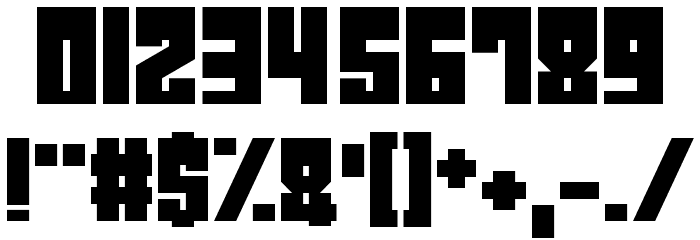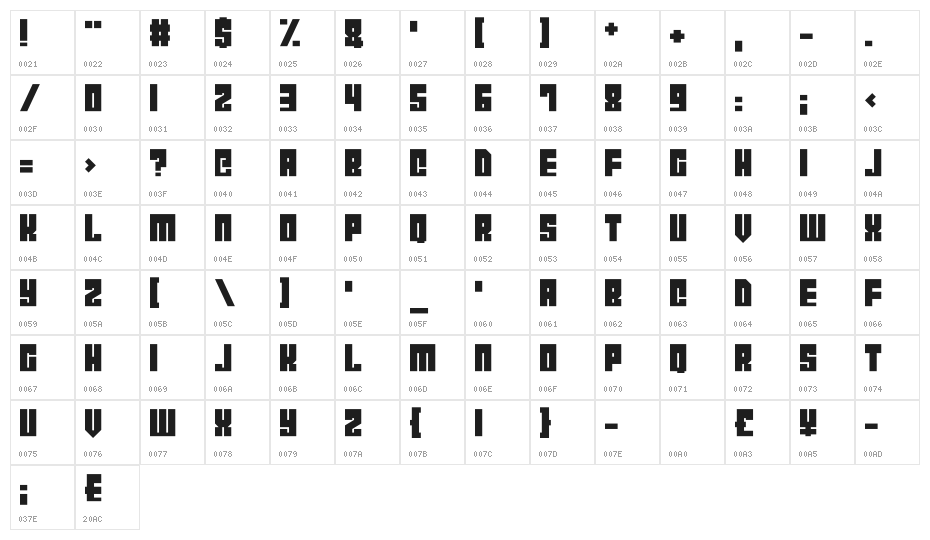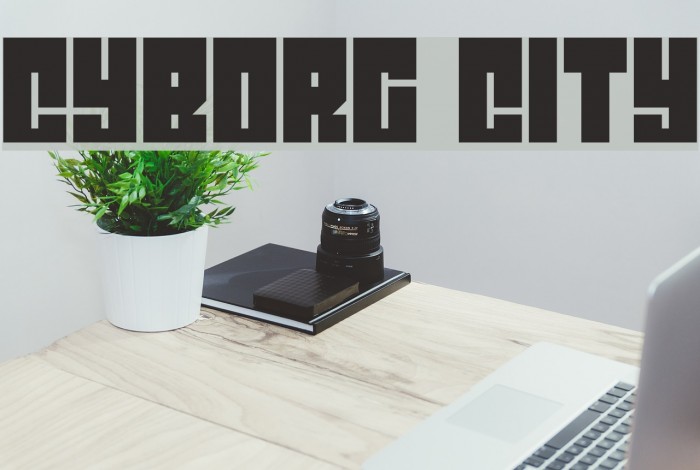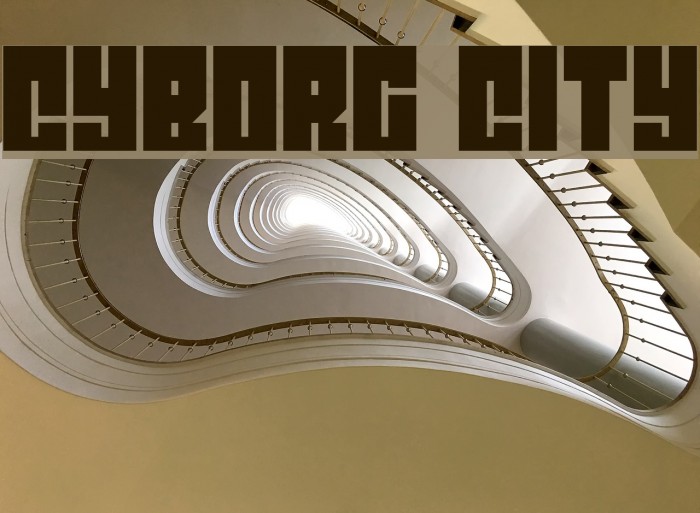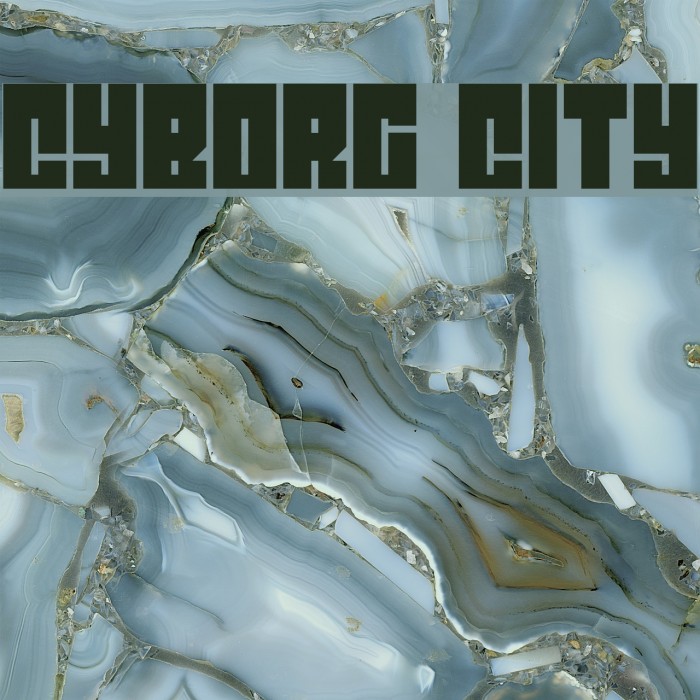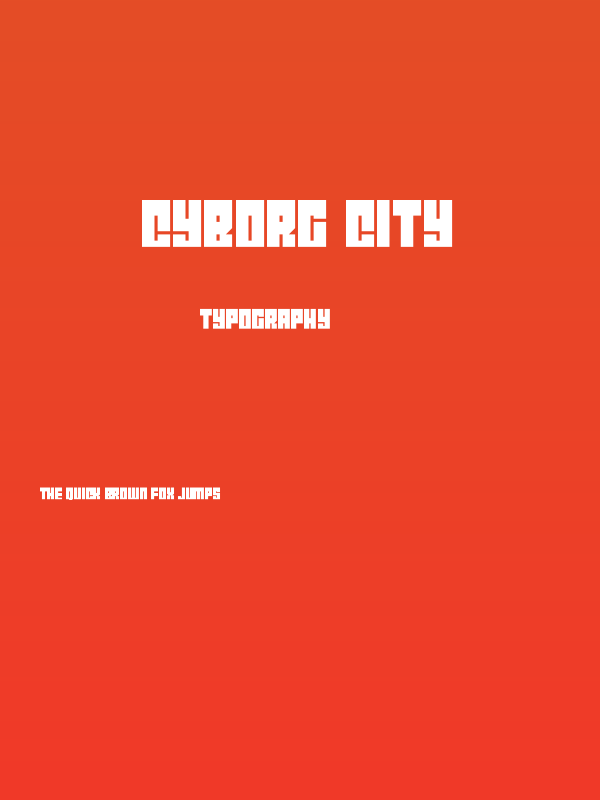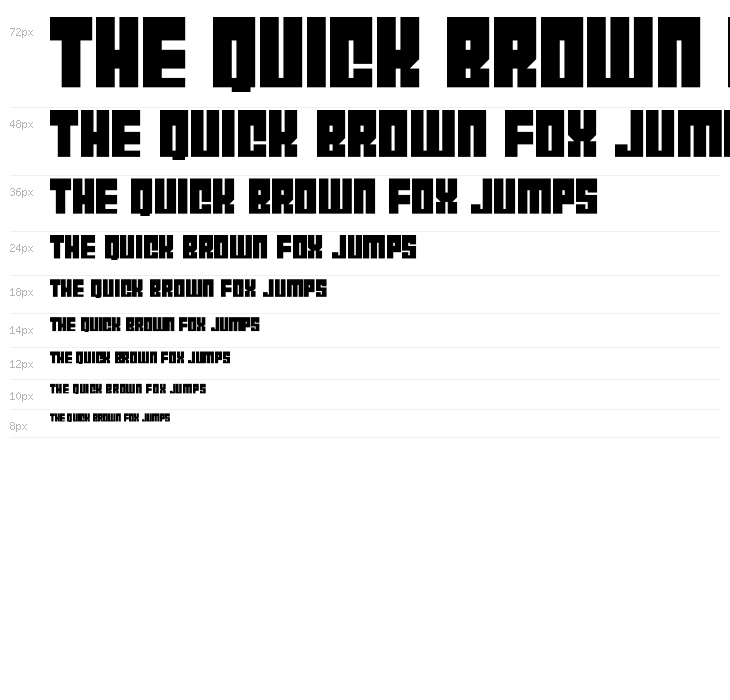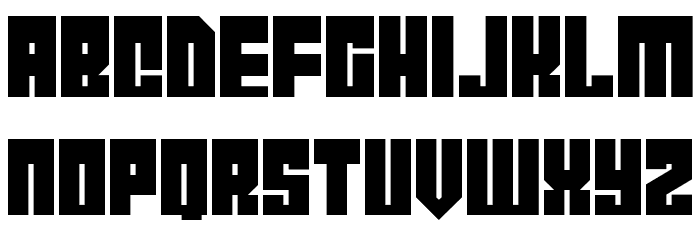
Cyborg City Font
Cyborg City Description
This font features a bold, futuristic design with a strong geometric structure. The characters are blocky and angular, giving it a distinctly modern and industrial feel. The uppercase letters are particularly striking, with sharp edges and a uniform height that creates a cohesive and powerful visual impact. The numbers and special characters maintain this bold aesthetic, ensuring consistency across all elements. The font's design is reminiscent of digital or cyberpunk themes, making it ideal for projects that require a tech-forward or avant-garde look.